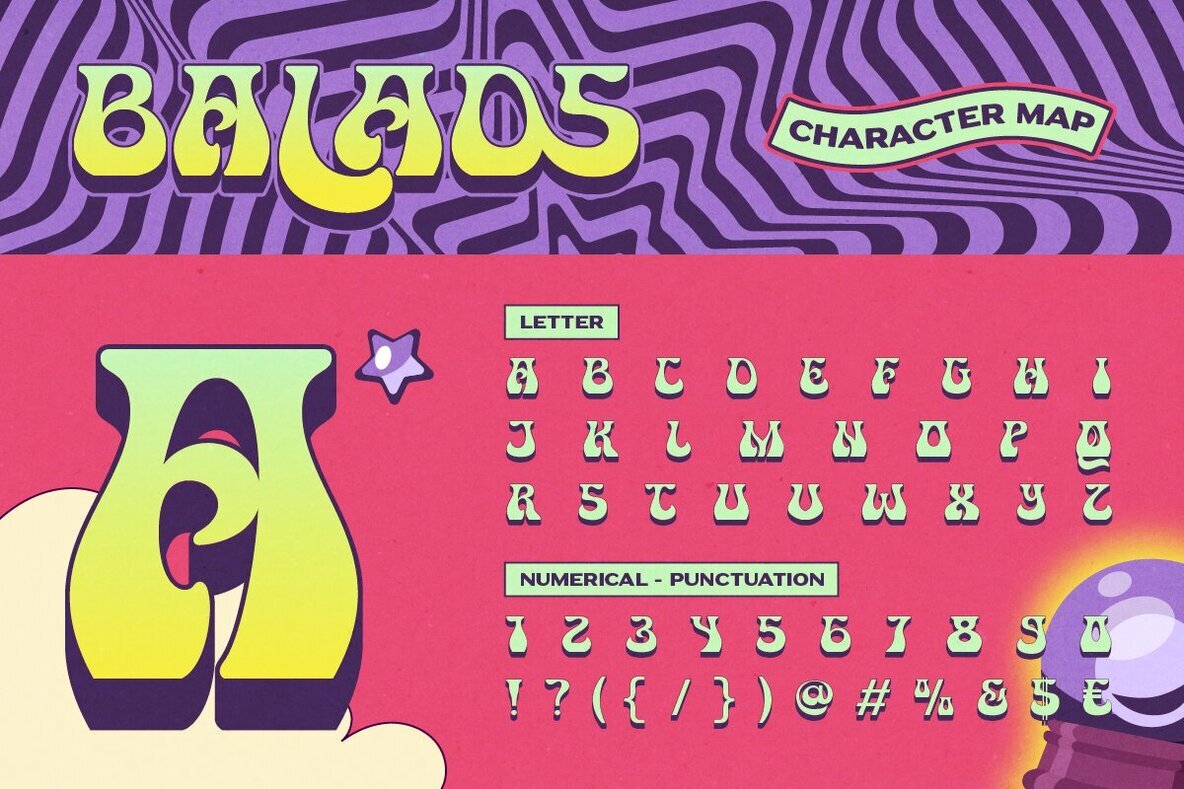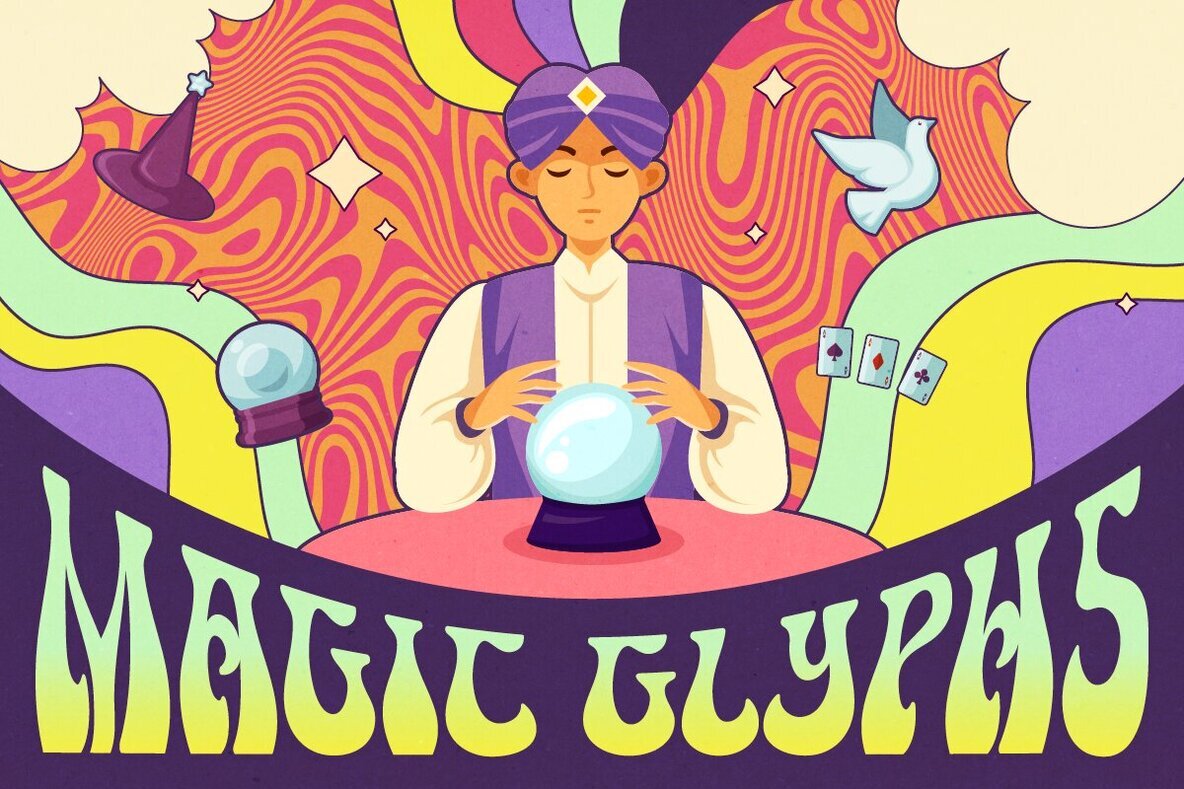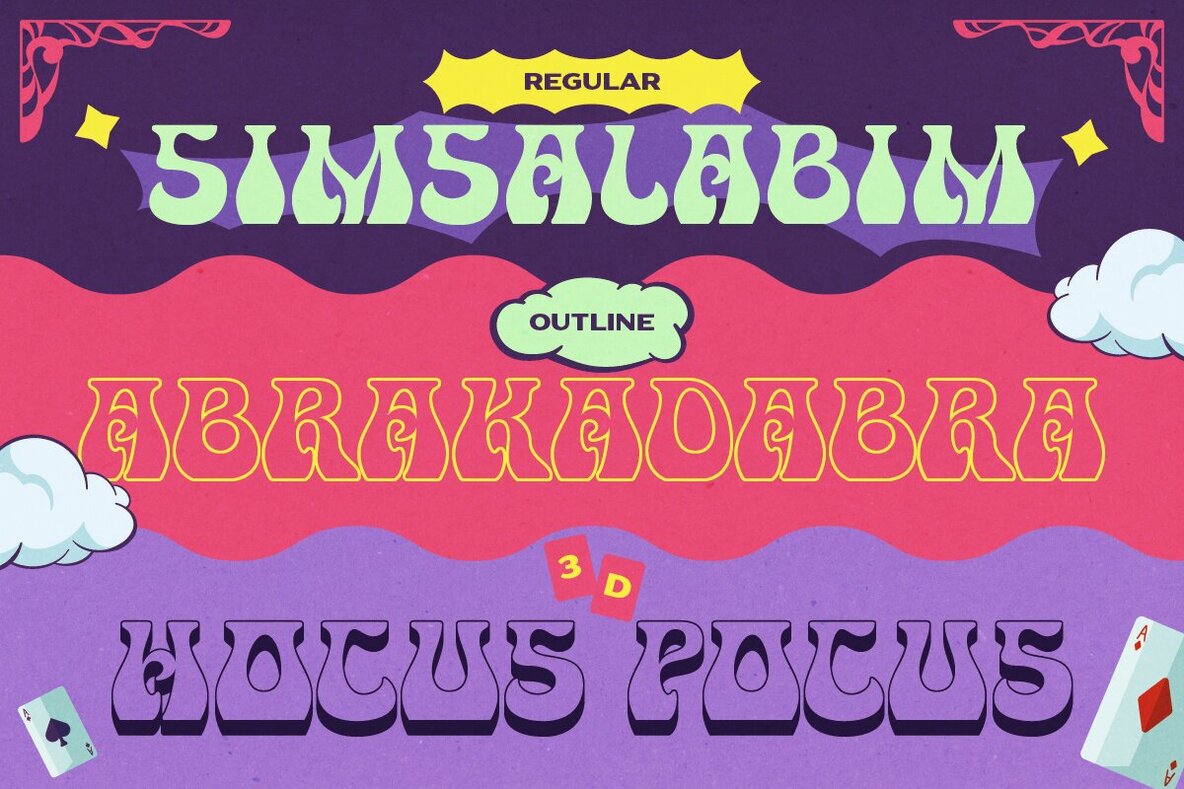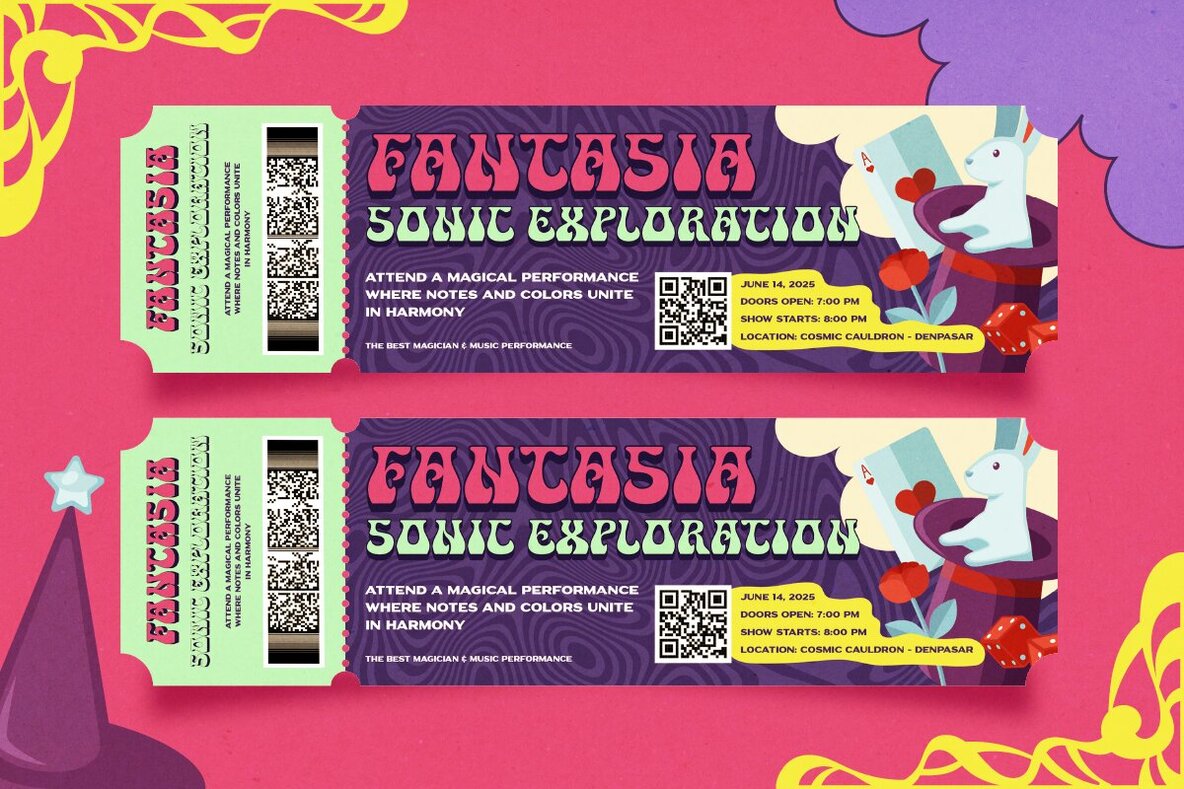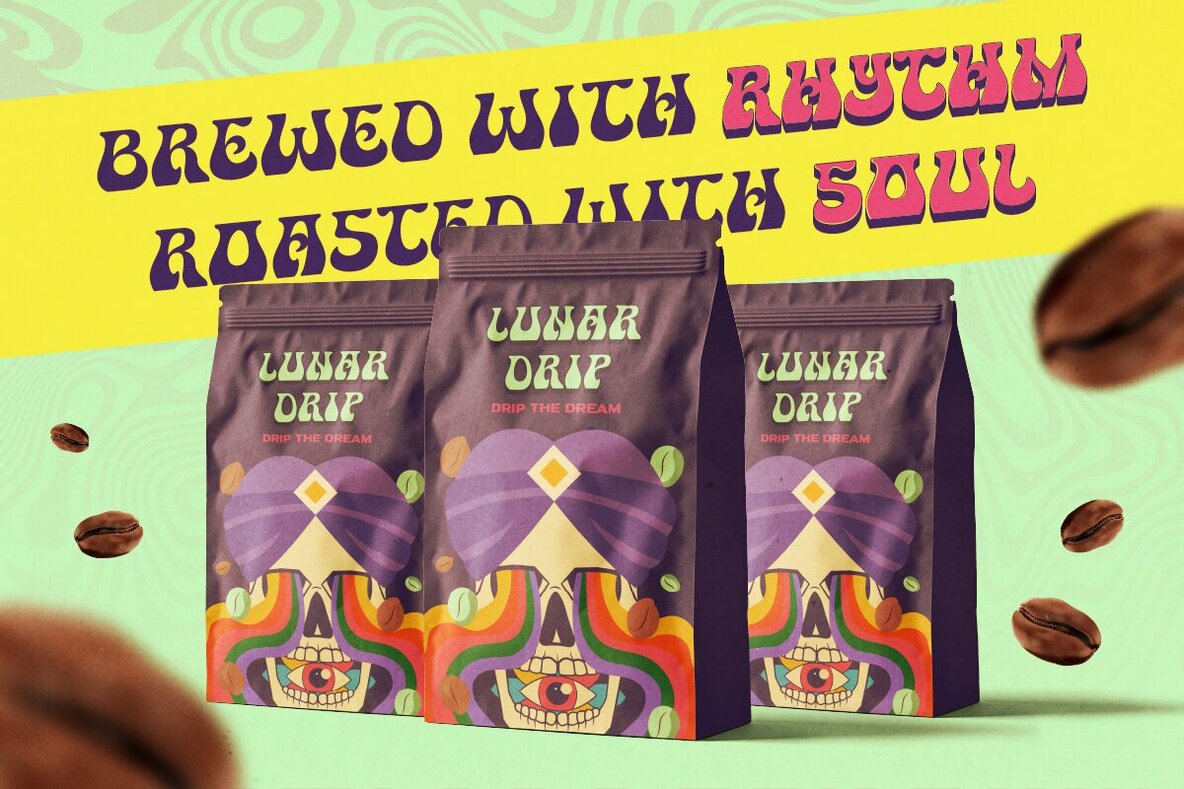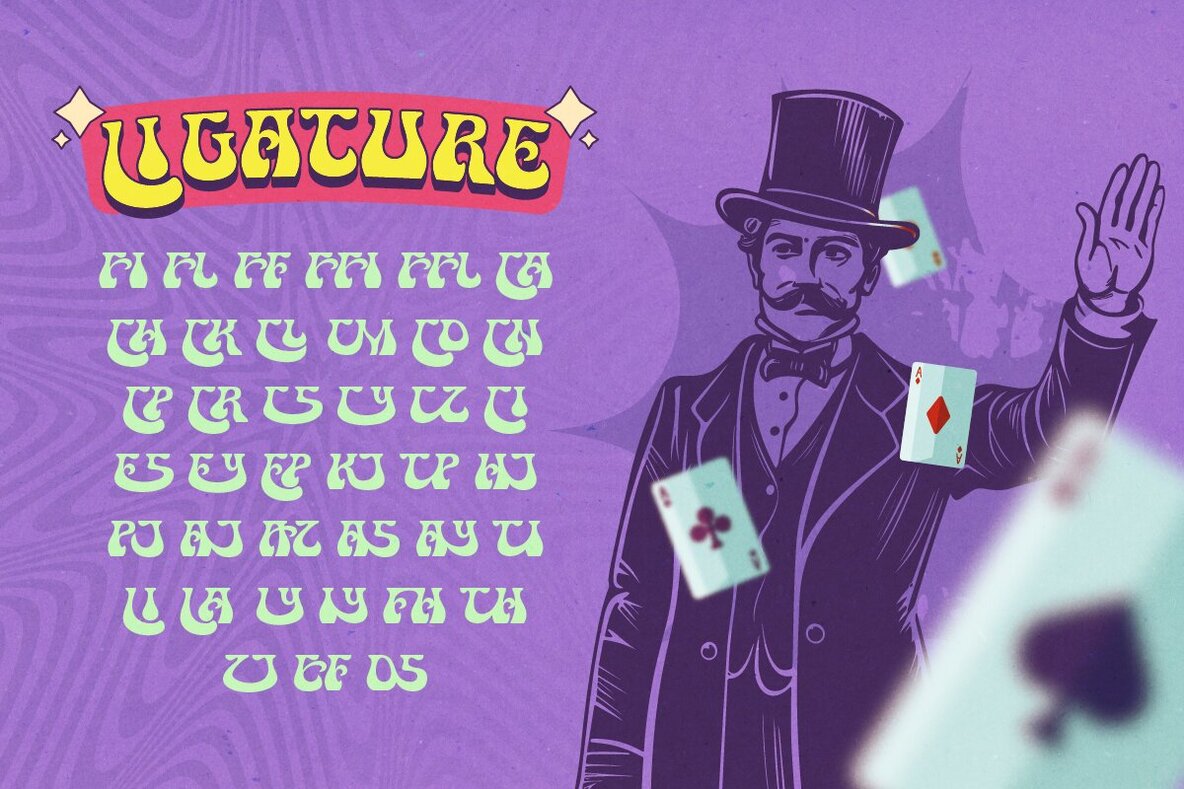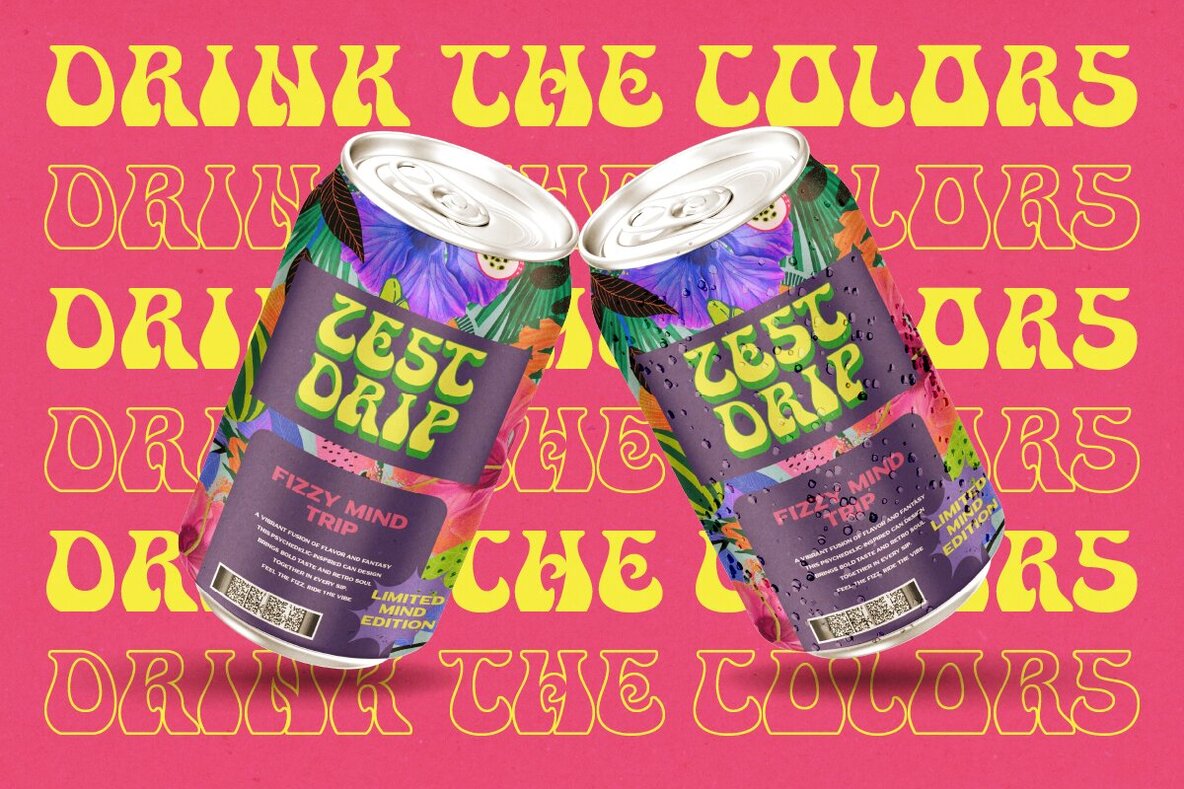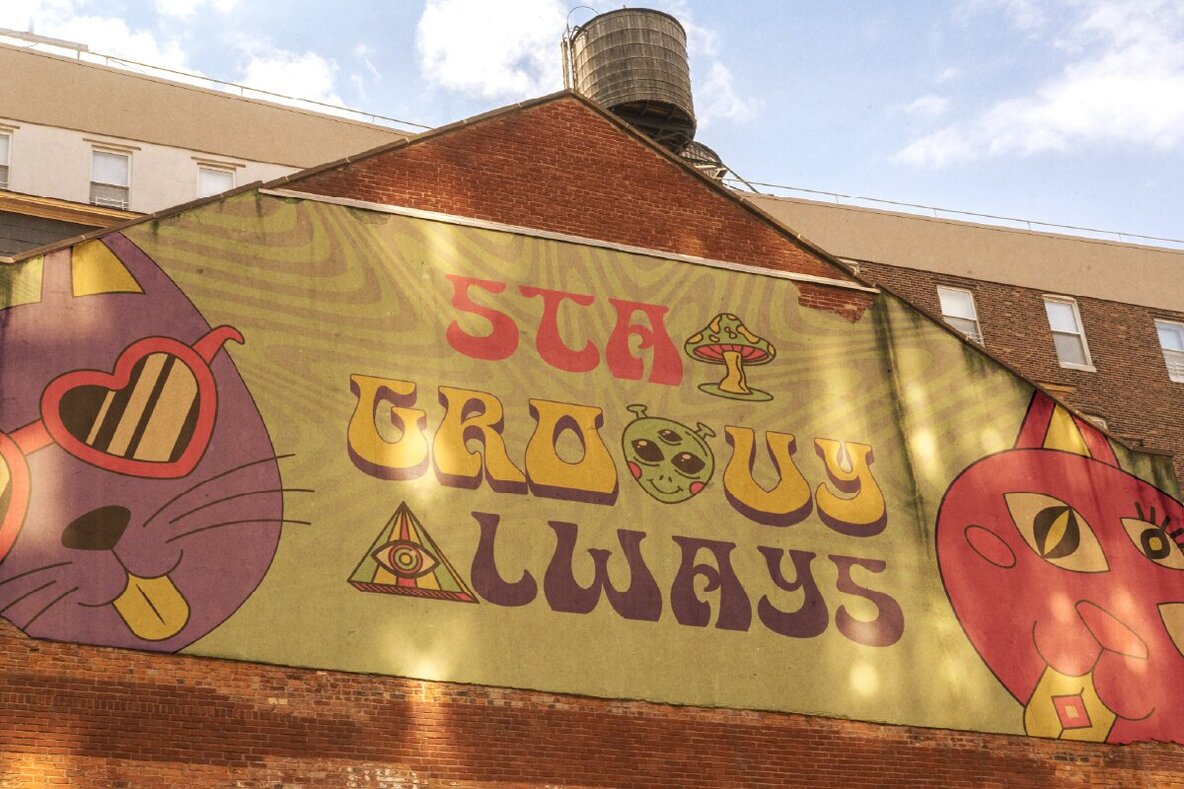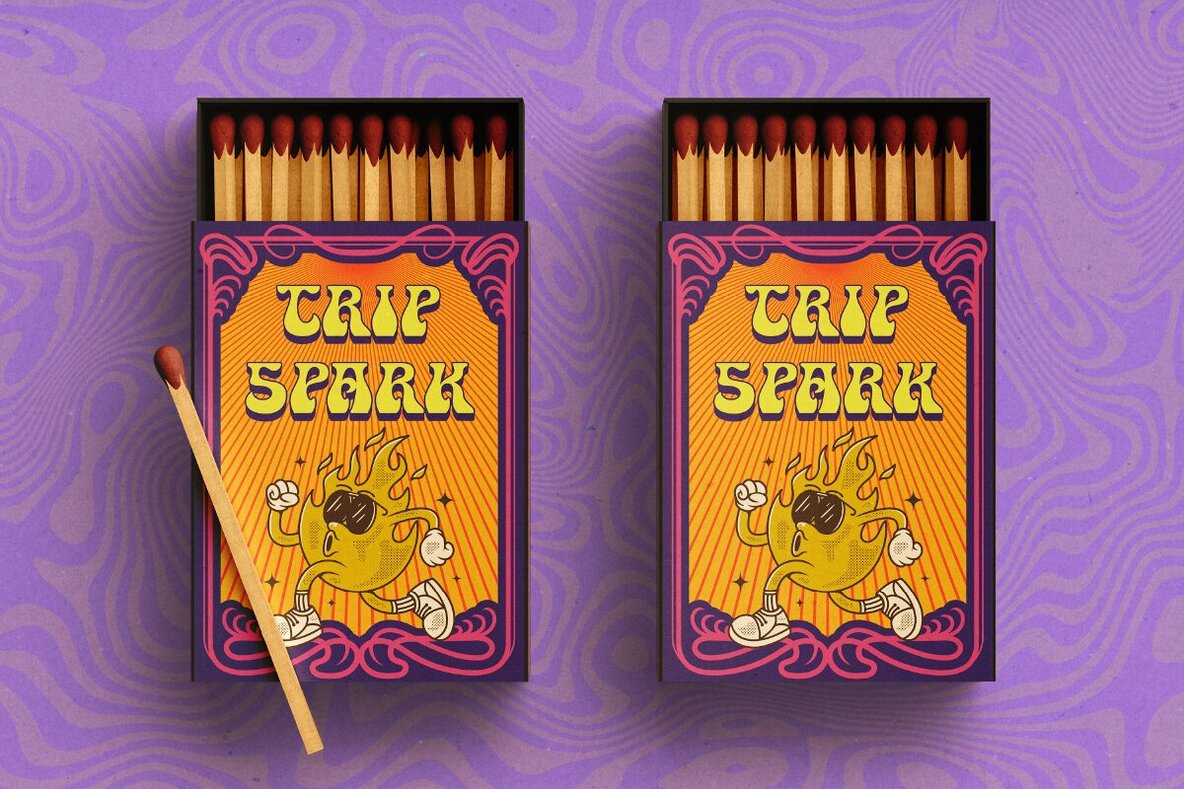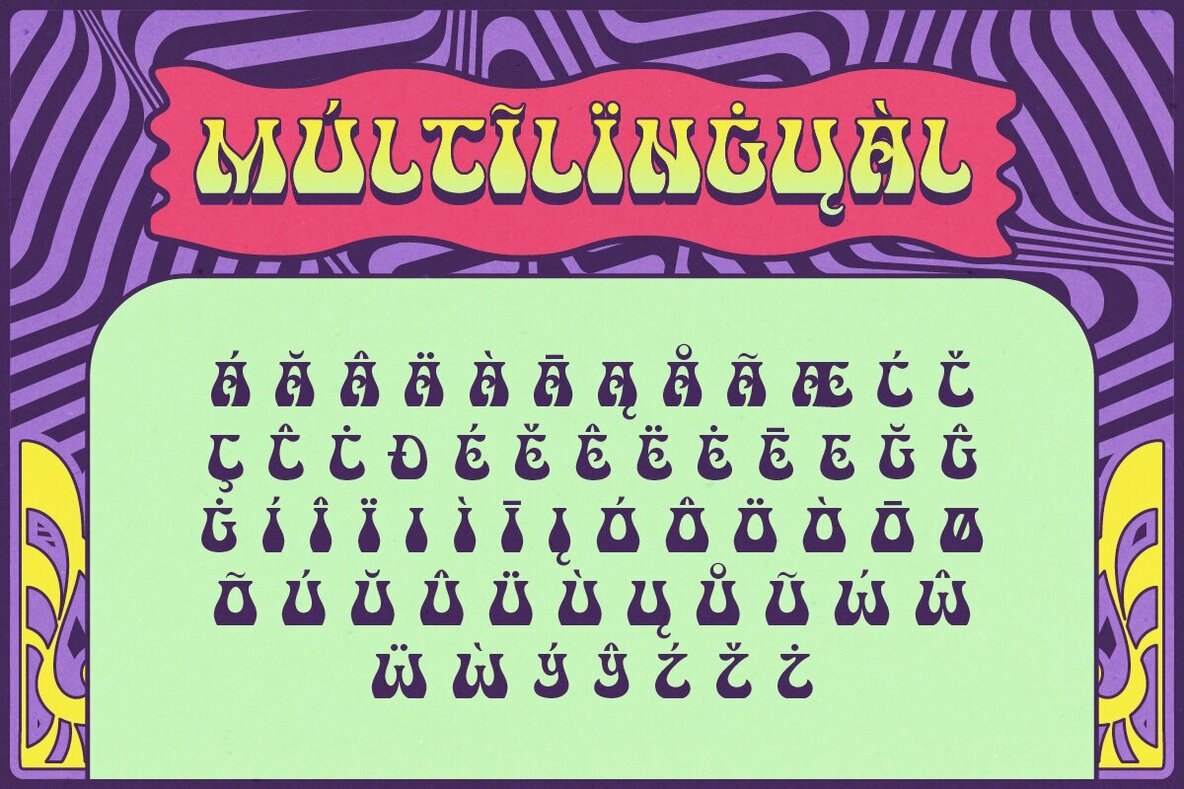
Balads Font
expand_font Balads Font Step back into the groovy 70s with Balads: a psychedelic font capturing the spirit of freedom, love, and music. Psychedelic,Trippy,Groovy,Retro,Hippie,Decorative,Summer,Festival Music,Funky,Vintage,Curved,Jazz,Stylish,Stylized,Theatrical,Eccentric Explore Exceptional Fonts for Digital and Traditional Media Fontpath offers a large variety of fonts for every designer, all at affordable prices and in multiple formats. Browse our best in class fonts today for all your creative needs, you can find everything you need right here at our site! Fonts,sans,sans serif,retro,script,decorative,title,FontPath 20140312040223 Fontpath offers 200,000+ of the most professional fonts found online, start downloading today! Real-Time Font Discovery at Fontpath